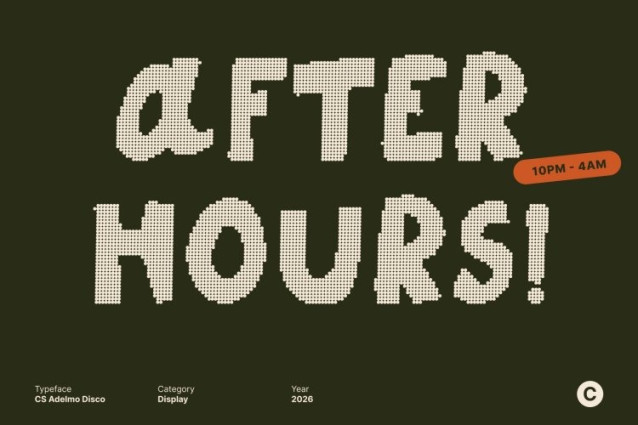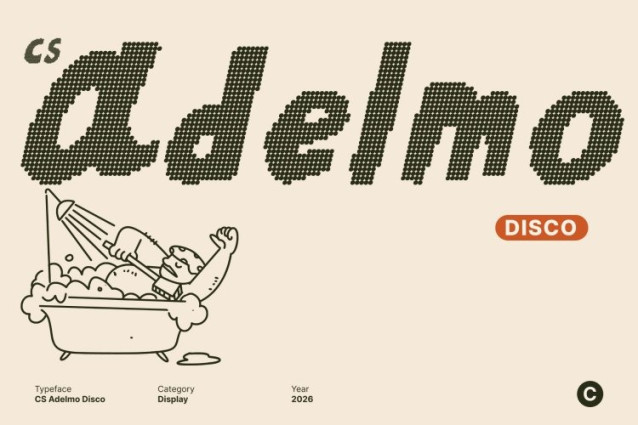
CS Adelmo Disco Font
CS Adelmo Disco Font This is a modern display font infused with lively handwritten character and upbeat personality. Its naturally drawn strokes bring spontaneity to creating a friendly rhythm that feels expressive and inviting. The combination of modern structure and handcrafted flair gives the font a joyful, creative presence that instantly feels fun.
Expressive Strokes with Disco-Inspired Energy
The hand-drawn essence of this font delivers an organic flow that feels dynamic and full of movement. Each curve and line carries delightful imperfections that celebrate expressive handwriting, while the disco influence adds a sense of rhythm and celebration. The result is a font that feels alive like dancing lights, music-filled rooms, and carefree moments on the dance floor.
Cheerful, Festive, and Full of Personality
Designed to radiate positivity, this font’s playful shapes and bouncy letterforms inject brightness into any design. Its cheerful tone makes it perfect for conveying fun, excitement, and creative confidence. Whether used boldly or sparingly, this font brings a festive, energetic vibe that captures attention and spreads joy.
Perfect for Titles, Branding, and Creative Displays
This font shines in titles, posters, branding, and expressive creative projects. It’s an excellent choice for event promotions, product packaging, youthful brand identities, social media visuals, and artistic layouts. With its modern handwritten style and disco-inspired cheer, this font helps designs feel vibrant, friendly, and full of life.